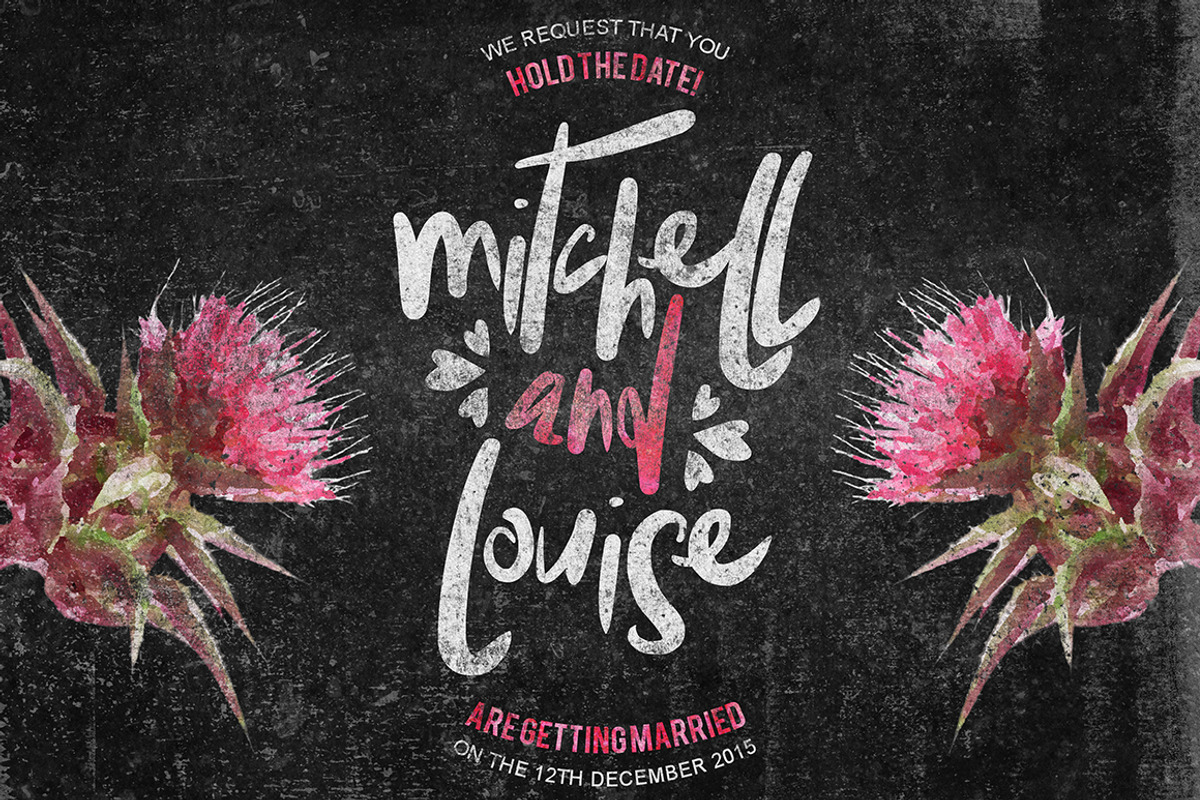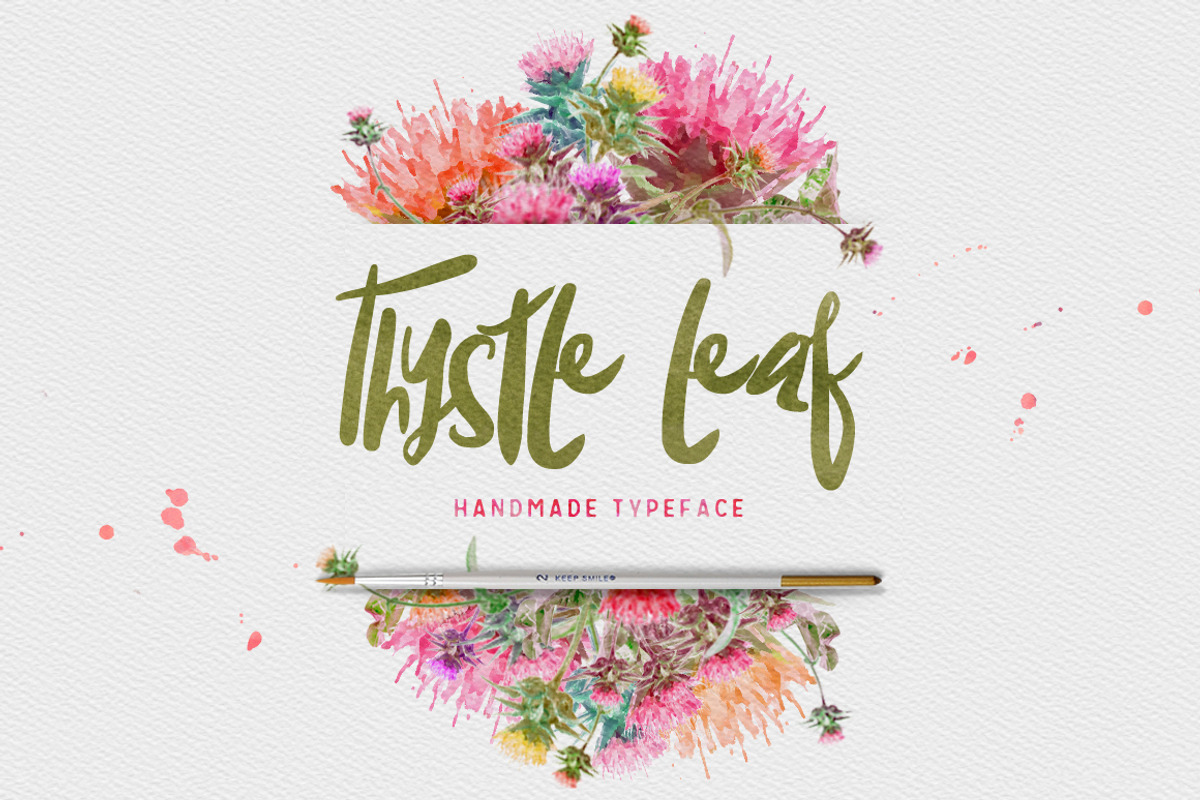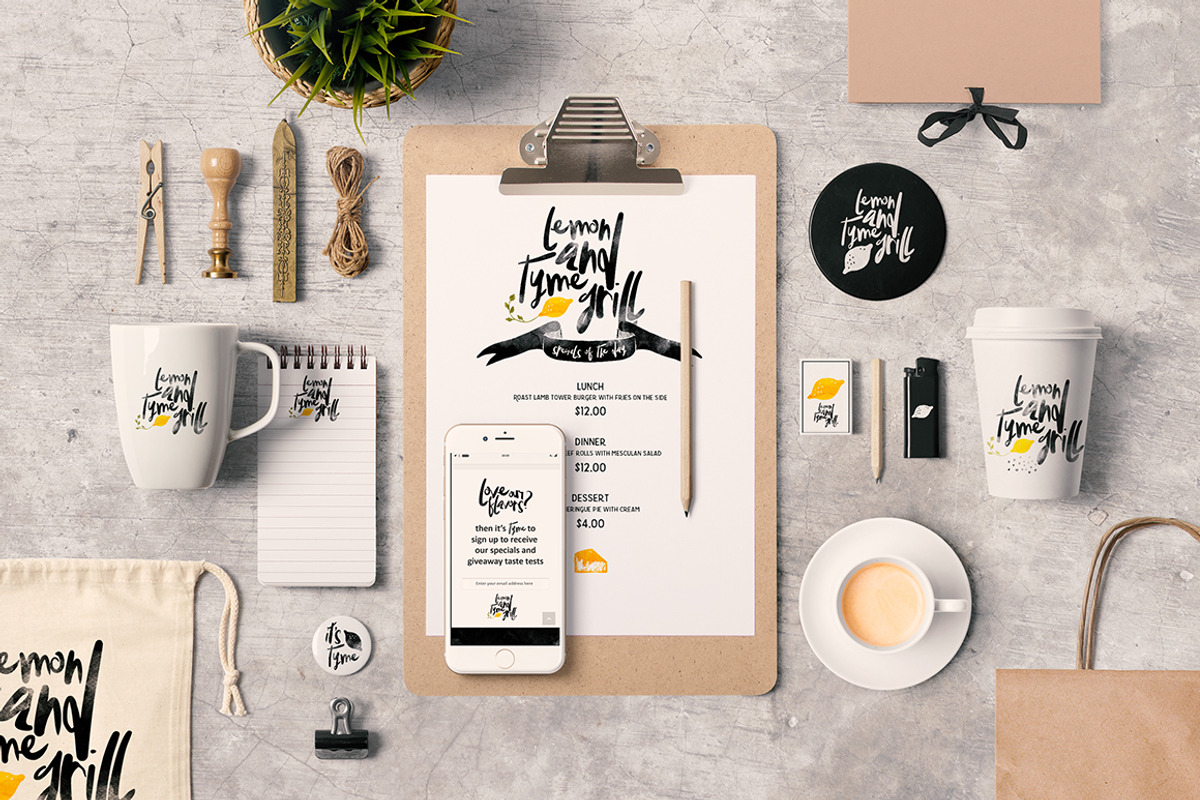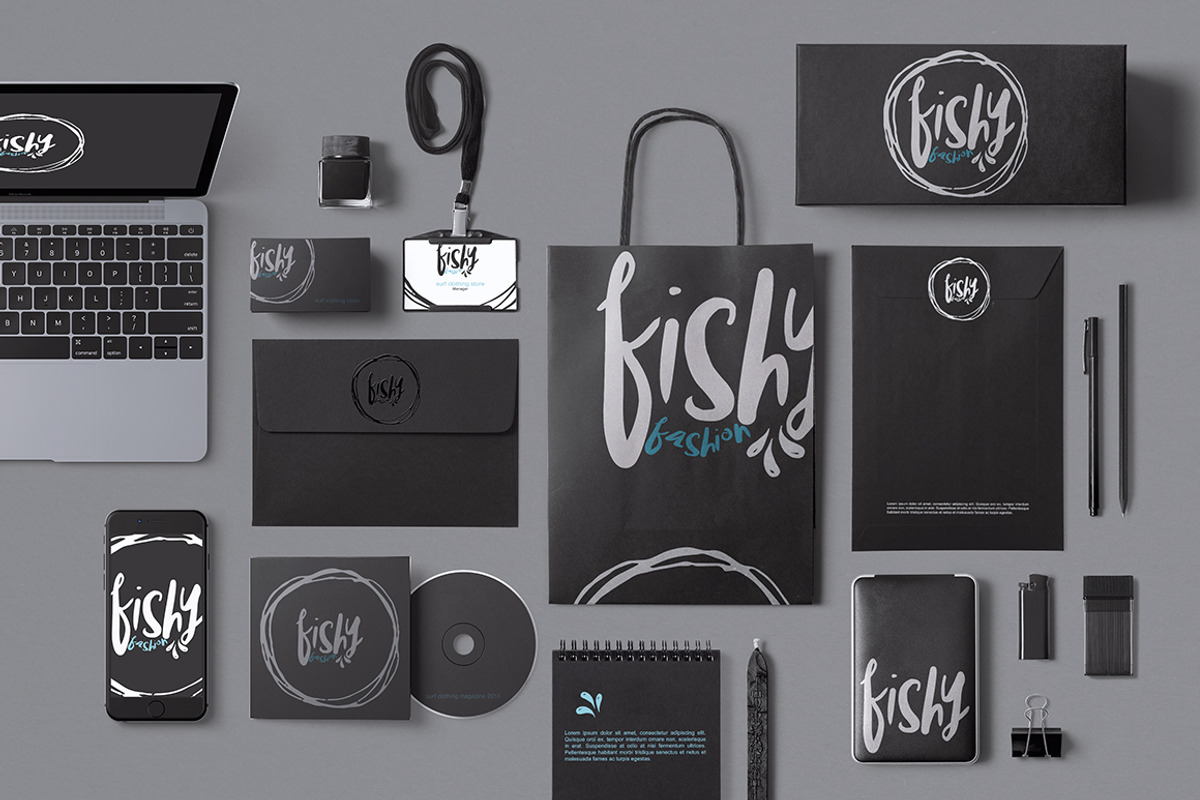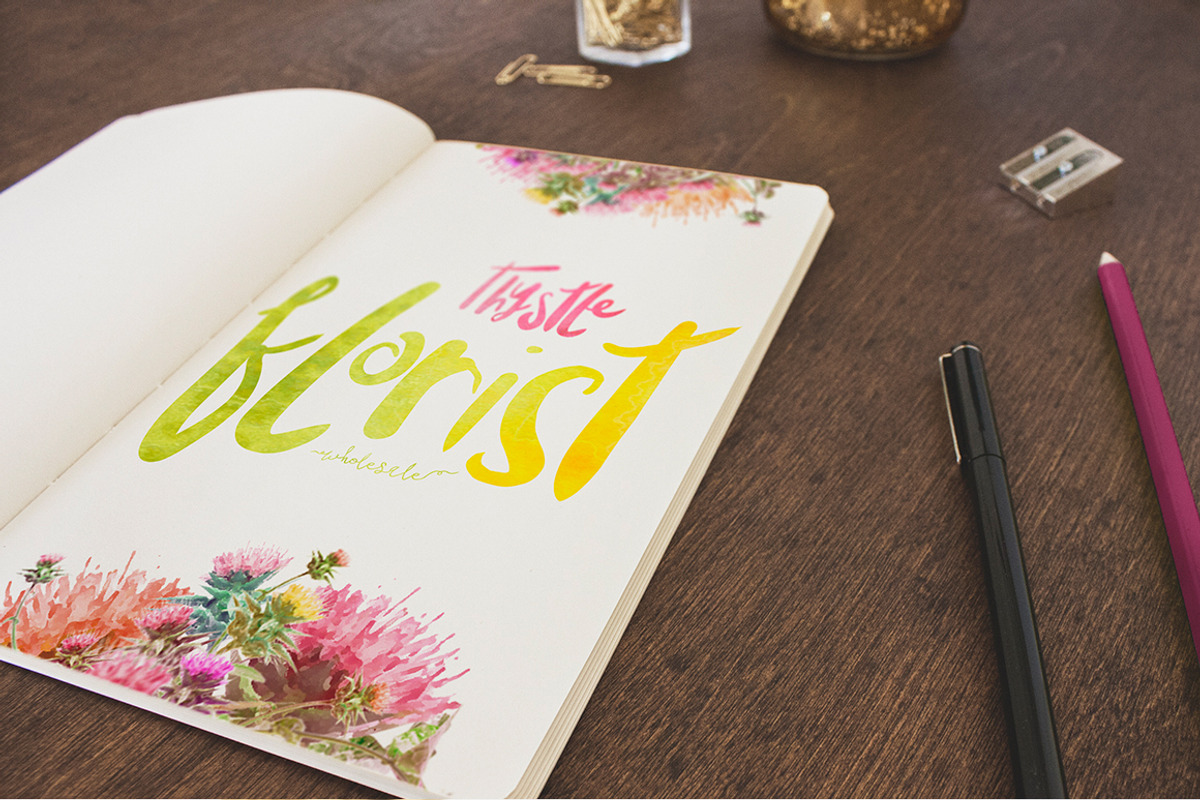
Thystle Leaf Typeface -20% OFF by Creativeqube Design is a font selected for branding, posters, packaging, typography.
- Introducing Thystle Leaf - an imperfect, hand drawn display semi-script typeface with an irregular baseline Thystle Leaf comes with upper an
Thystle Leaf Typeface -20% OFF by Creativeqube Design fits naturally into Branding, posters, packaging, typography.